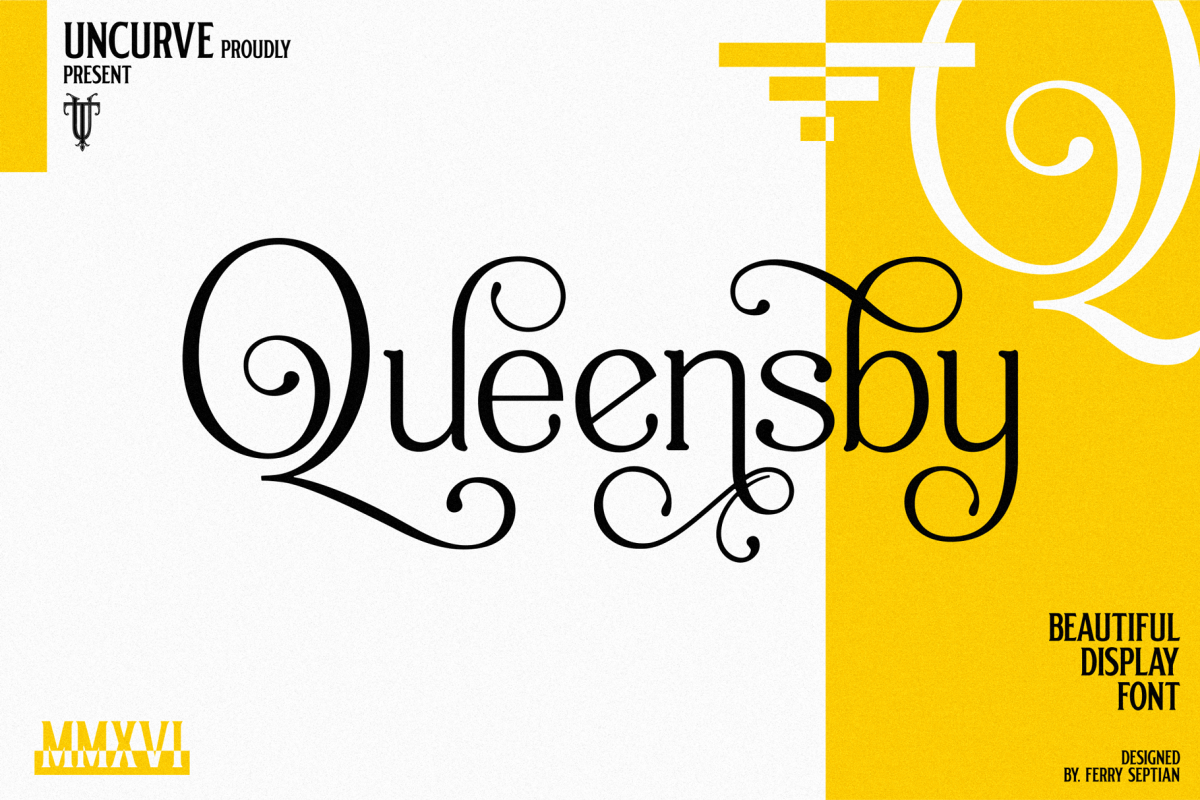
Queensby
Queensby is a unique modern serif font with tons of alternates, to use in such place as headlines. You can mix and match to find something different. Queensby is perfect for advertising, magazines, editorial, posters, branding, logo type, headers, titles, packaging, displays and more